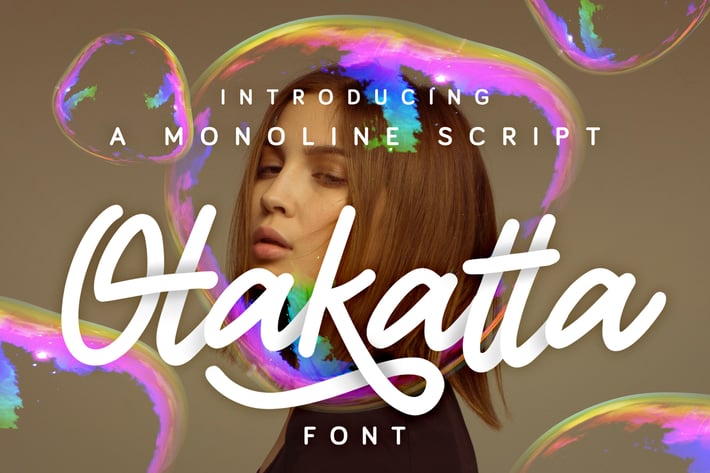
Otakatta Font
Otakatta Monoline Font
Otakatta Font can be used for various media like special events,
invitation, packaging, poster, wedding, movie titles, book titles,
social media, logos, branding, and others.
+ Stylistic Set
+ Ligature